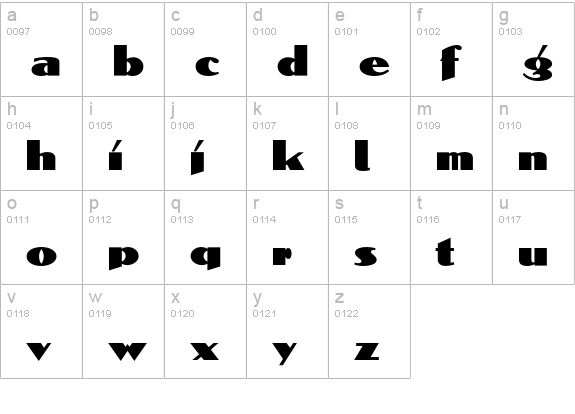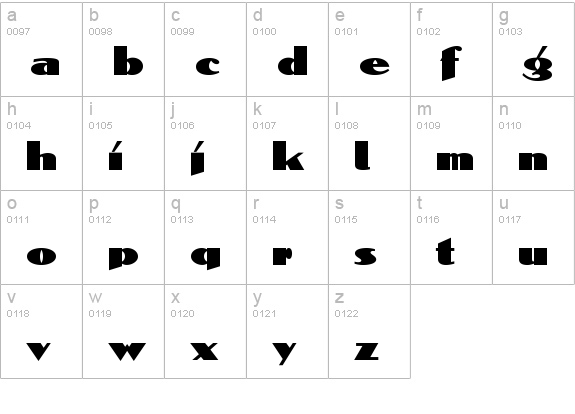
DolmenICG Font Details
DolmenICG is a stunning and elegant font that exudes sophistication and modernity. With its unique design and sleek lines, this font is perfect for adding a touch of class to any project. DolmenICG is a versatile typeface that can be used for various purposes, from branding and advertising to web design and print materials. The best part about DolmenICG font is that it is completely free to download. You can easily access this beautiful font at FontsMarket.com and start using it in your projects right away. Whether you are a designer looking for a fresh and stylish font or a business owner wanting to enhance your branding, DolmenICG is the perfect choice. Download it now and elevate your designs with this amazing font!